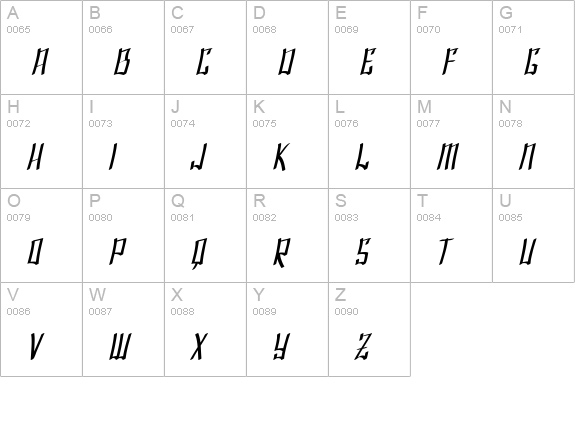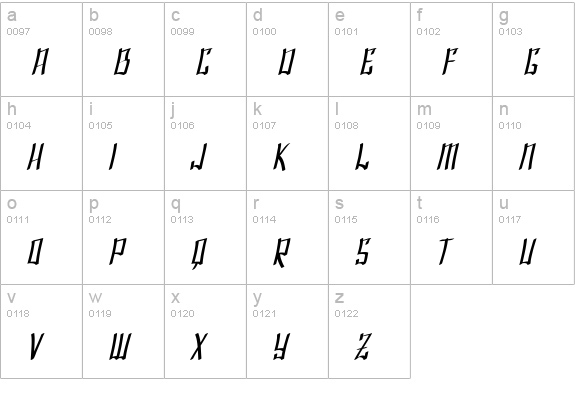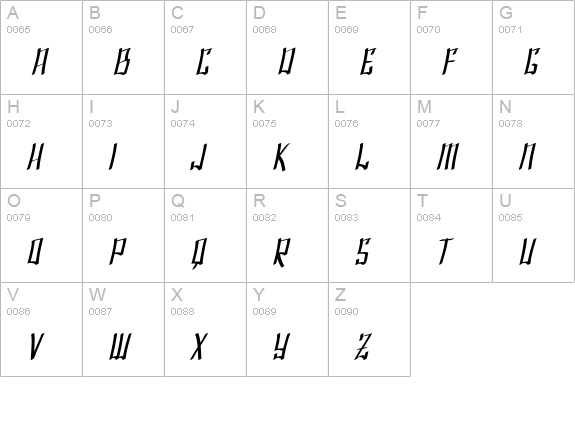
SF Shai Fontai Oblique Font Details
SF Shai Fontai Oblique is a distinctive, italic variant in the SF typeface family \xE2\x80\x94 well suited to design and typography projects.
SF Shai Fontai Oblique font is a stunning typeface that combines elegance and modernity. With its sleek and slanted design, this font exudes a sense of sophistication and creativity. The clean lines and unique letterforms make it perfect for a wide range of design projects, from branding and advertising to editorial and web design. What sets SF Shai Fontai Oblique font apart is not only its aesthetic appeal but also the fact that it is available for free download at FontsMarket.com. This means that designers, creatives, and typographers can easily access this remarkable font without any cost. Whether you are a professional designer or a hobbyist, this font offers you the opportunity to enhance your projects with a touch of elegance and style, all without breaking the bank. SF Shai Fontai Oblique font is a versatile typeface that can be used in various contexts. Its oblique style adds a sense of dynamic movement to your designs, making them visually engaging and captivating. Whether you are working on a logo, a poster, a website, or any other design project, this font will undoubtedly make a lasting impression. The characters in SF Shai Fontai Oblique font are meticulously crafted, ensuring that each letter seamlessly flows into the next. This attention to detail creates a harmonious and balanced overall appearance, making your text appear polished and professional. Furthermore, the font's legibility is exceptional, ensuring that your message is clearly communicated to your audience. In addition to its aesthetic qualities, SF Shai Fontai Oblique font also offers a wide range of glyphs, including punctuation marks, numerals, and special characters. This means that you have the flexibility to create unique and personalized designs that truly reflect your creative vision. Whether you are a seasoned designer or just starting out, SF Shai Fontai Oblique font is a valuable addition to your font library. Its timeless elegance, versatility, and free availability make it an excellent choice for any design project. So why wait? Visit FontsMarket.com today and start downloading this remarkable font to elevate your designs to new heights.